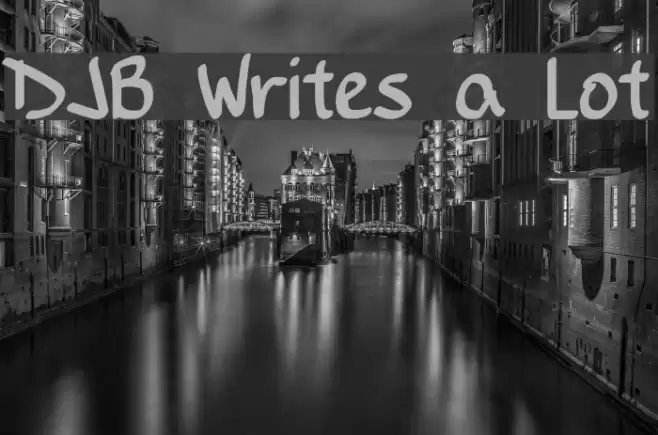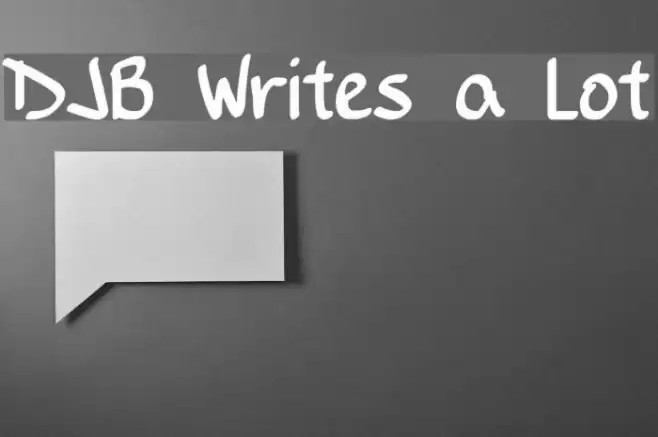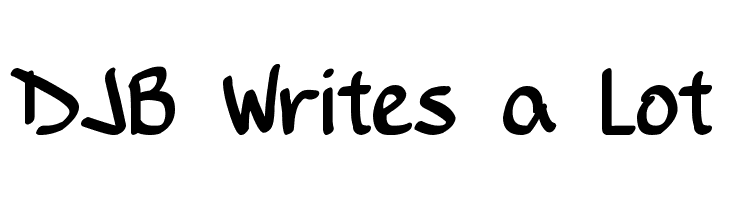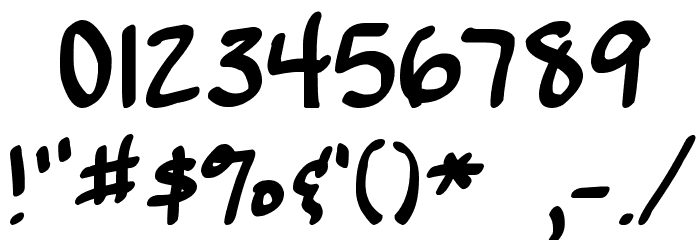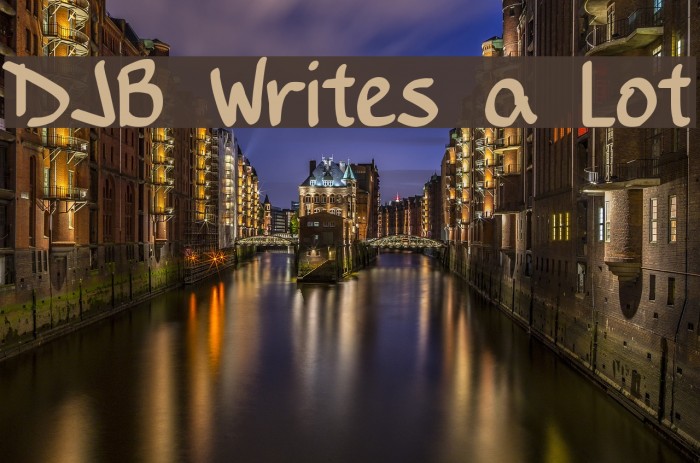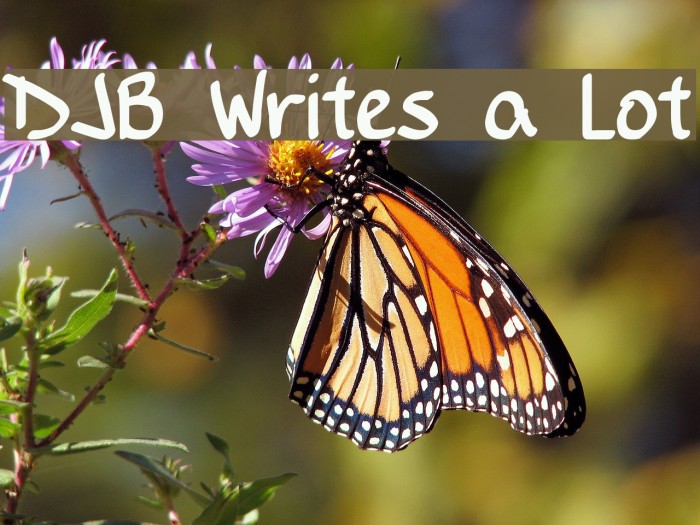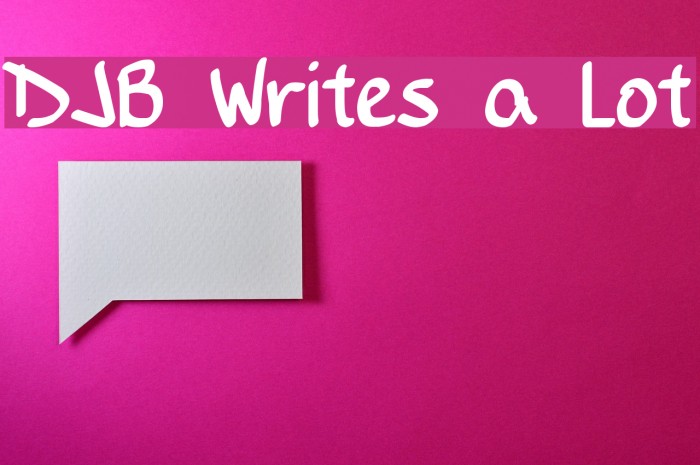
DJB Writes a Lot Font
DJB Writes a Lot Description
This font exudes a playful and casual handwritten style, characterized by its bold and rounded letterforms. The strokes are consistent in thickness, providing a uniform appearance that enhances readability. Each character has a slightly irregular shape, adding to the font's charm and informal vibe. The uppercase and lowercase letters are well-proportioned, and the numerals are clear and distinct. Special characters are included, maintaining the same playful aesthetic. This font is perfect for projects that require a personal touch or a friendly, approachable look.
A playful, bold handwritten font with rounded, consistent strokes from Uncategorized fonts.
- Proposed Projects: Ideal for greeting cards, children's books, casual branding, and social media graphics.
- Overall Style: Casual
- Use Case: Headlines, Informal text, Creative projects